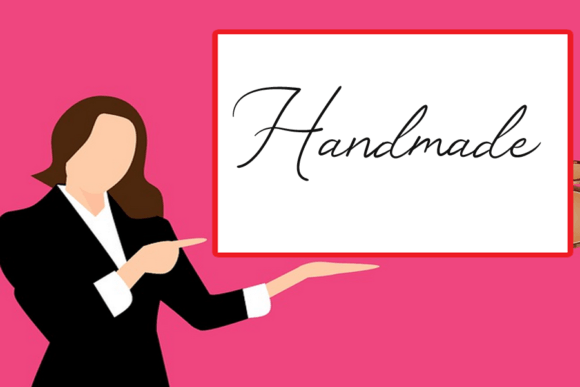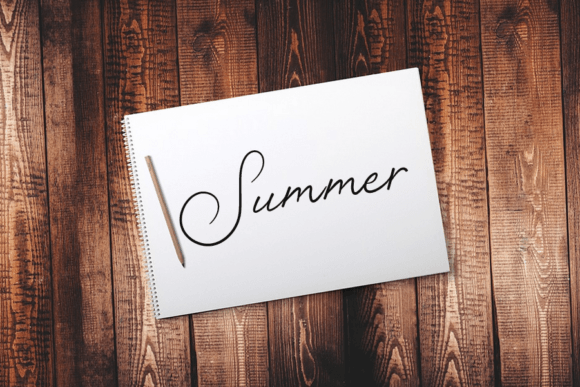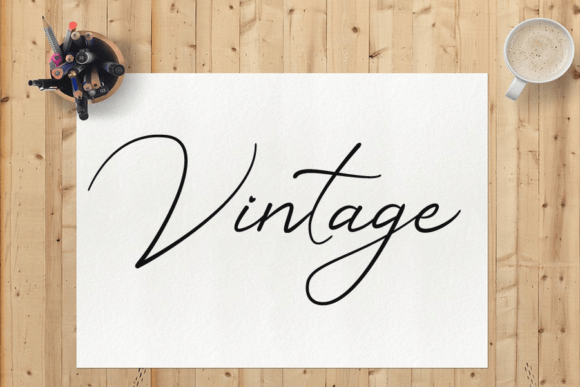
About Kalina Font
Kalina is a neat and beautiful handwritten font characterized by its elegant touch, making it perfect for your favorite projects. Its distinct and timeless style is sure to capture your admiration and elevate your designs to spectacular levels. The font is crafted with precision to bring a sense of refinement and sophistication to your creative endeavors.
The neat and beautiful qualities of Kalina make it versatile for a wide range of applications. Whether you’re working on wedding invitations, quotes, logos, or any project that requires a touch of elegance, this font is designed to add a sense of charm and grace.
Imagine using Kalina for a chic and stylish wedding invitation, where its elegant script enhances the romantic atmosphere. Picture it in quotes or branding materials, creating a sophisticated and memorable impression. Whether applied to digital graphics or tangible materials, Kalina is crafted to be a font that brings a timeless and distinct flair to your designs.
In summary, Kalina is more than just a font; it’s a neat and beautiful handwritten typeface that adds an elegant touch to your projects. Let it be the choice that infuses your designs with a sense of timeless style, making them truly spectacular.